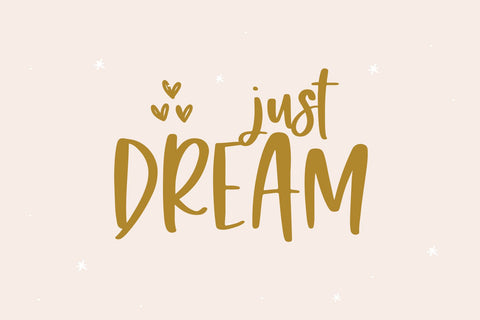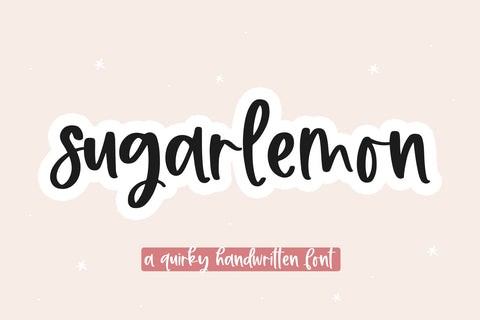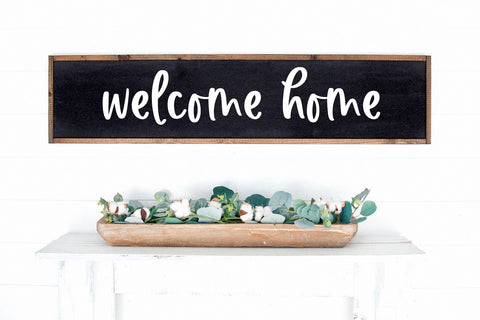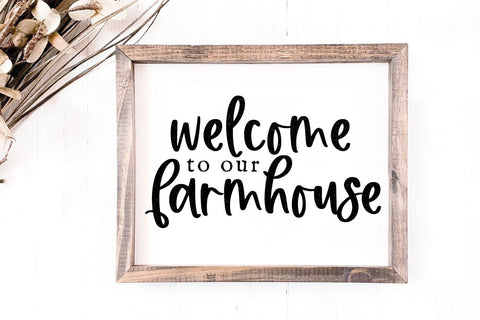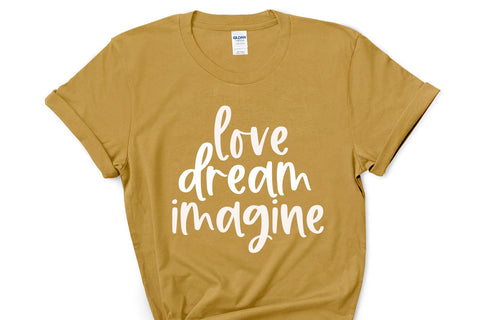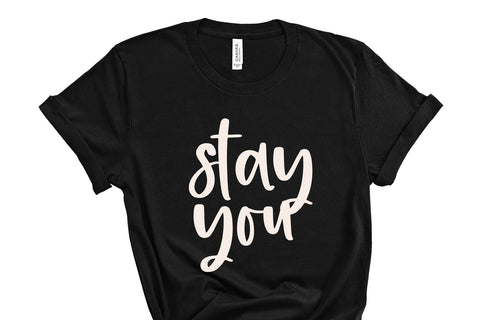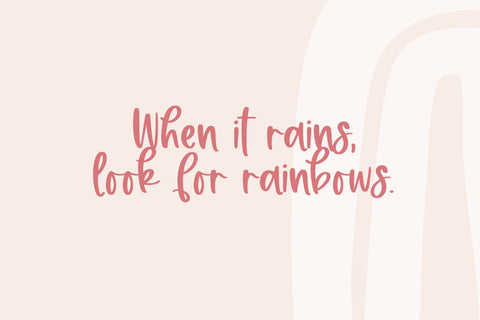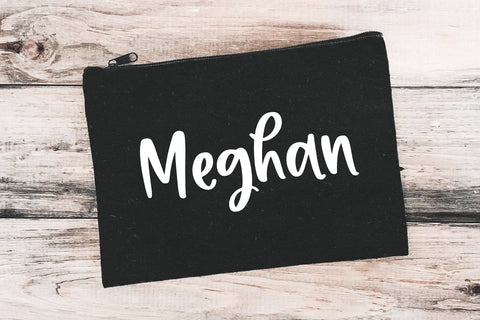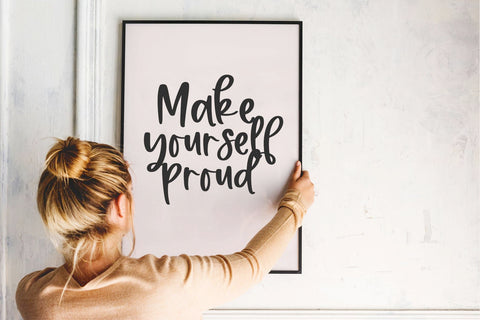
Sugar Lemon - Cute Handwritten Font
Sugar Lemon is a cute handwritten script font!
This font is perfect for quotes, shirt designs, websites, branding, children's designs, blogs, logos, invitations and more!